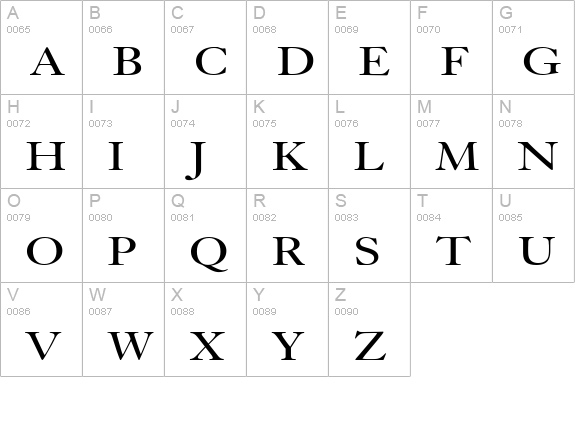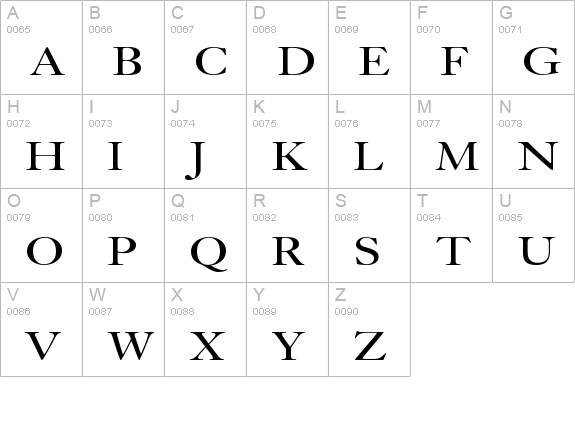
Bliss Wide Normal is the standard, neutral, extended-width variant in the Bliss typeface family \xE2\x80\x94 well suited to general body text, paragraphs, and standard typographic work.
Bliss Wide Normal is a modern and elegant font that exudes a sense of sophistication and style. Its clean lines and balanced proportions make it a versatile choice for a wide range of design projects, from branding and advertising to editorial layouts and packaging. The gentle curves and sturdy letterforms of Bliss Wide Normal create a harmonious and pleasing visual rhythm that captures attention and conveys a sense of professionalism. What makes Bliss Wide Normal even more appealing is that it is available for free download at FontsMarket.com. This means that you can easily access this high-quality font and use it in your projects without any cost. Whether you are a graphic designer, a creative professional, or anyone looking to elevate their designs with a touch of elegance, Bliss Wide Normal is a fantastic choice that combines style and accessibility. Download it today and enhance your creative projects with this exquisite typeface.